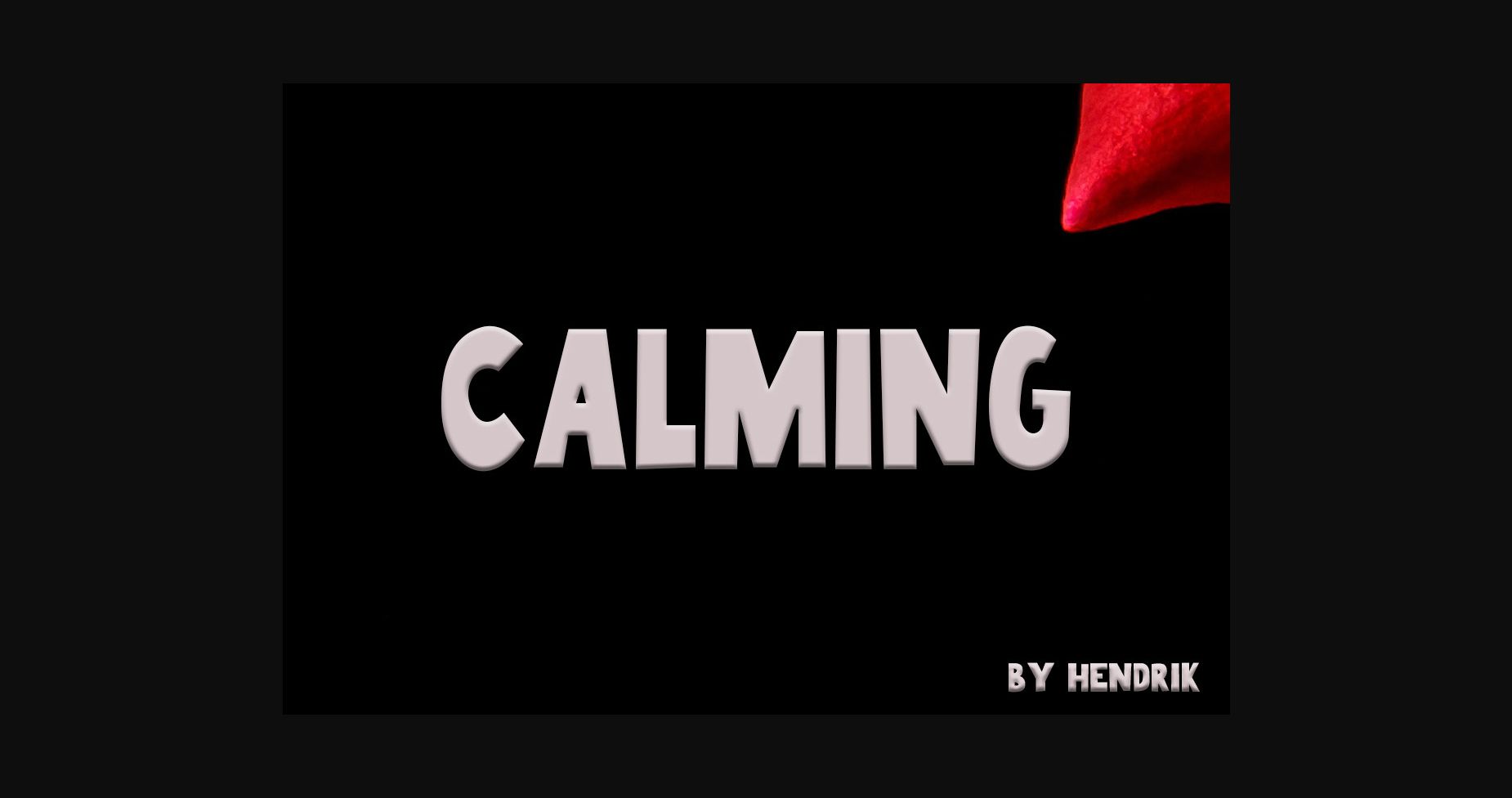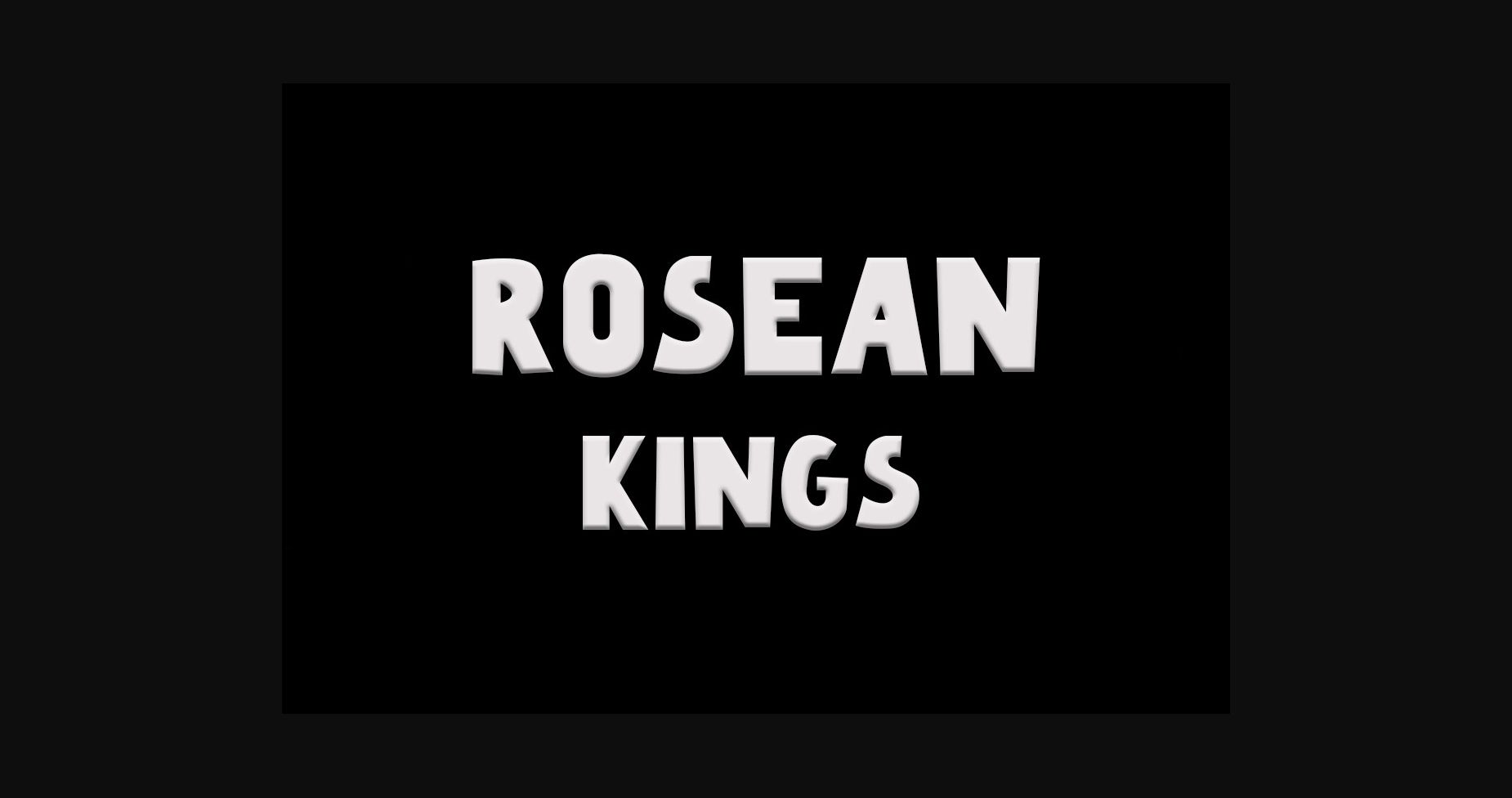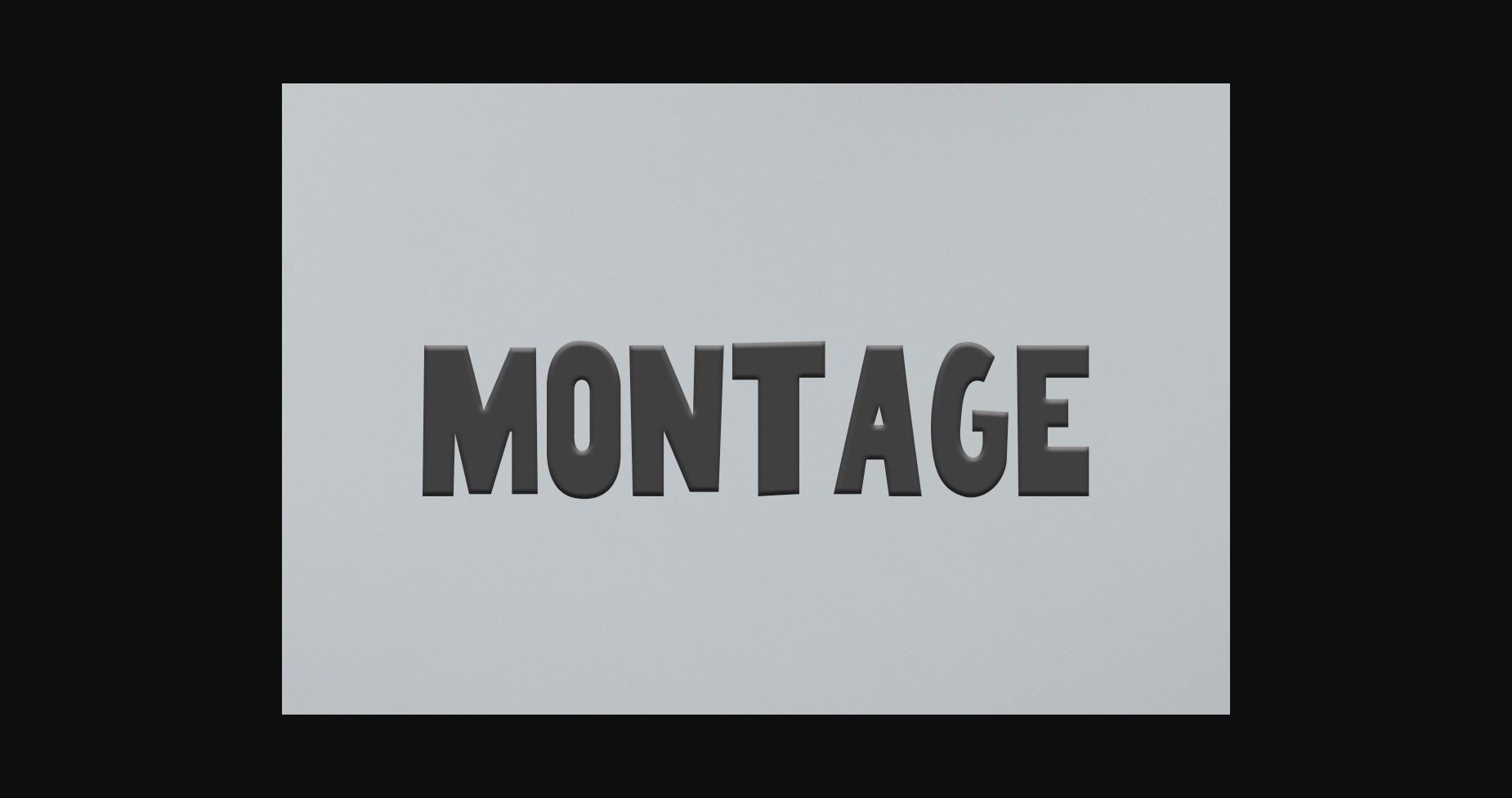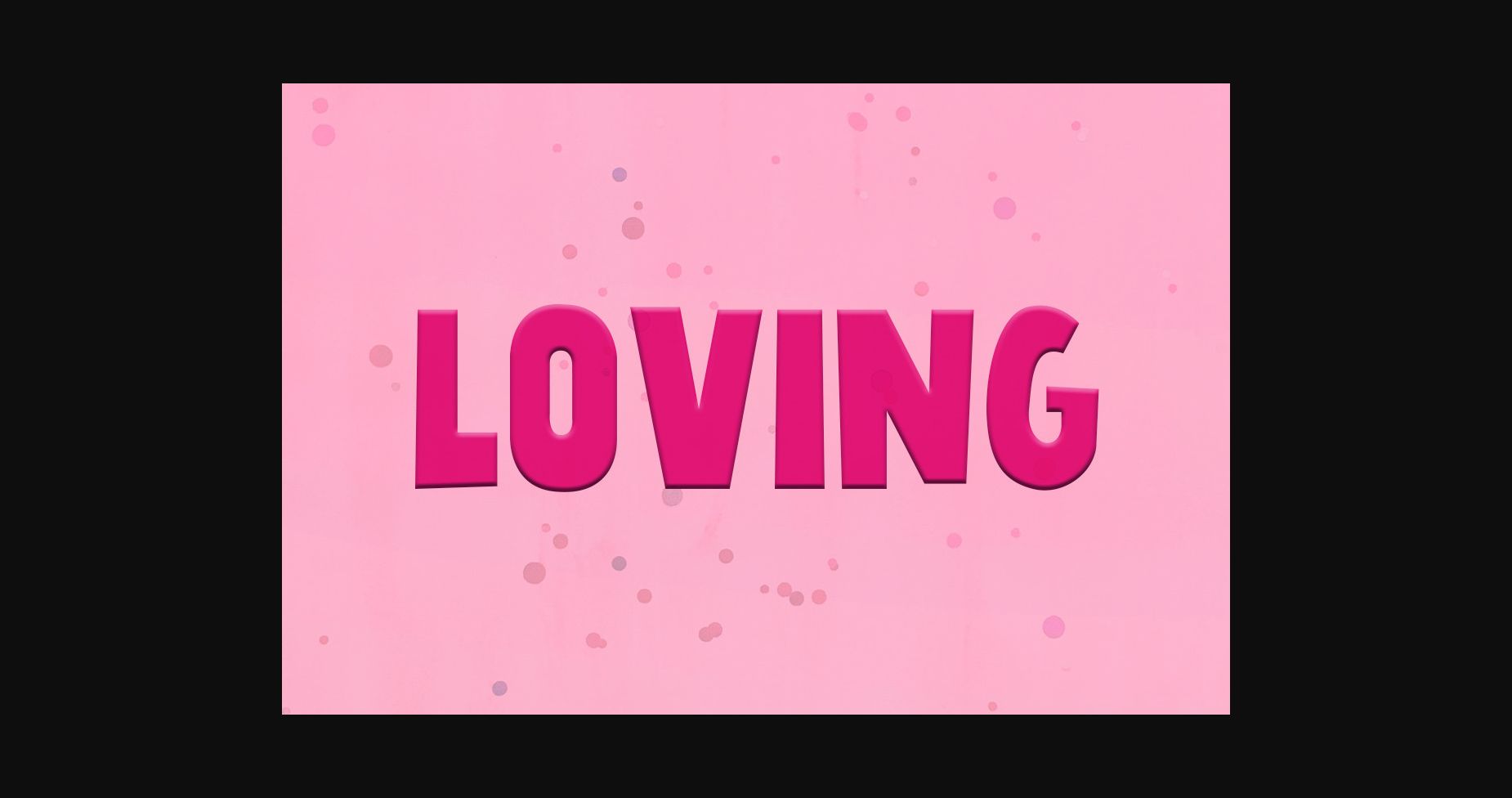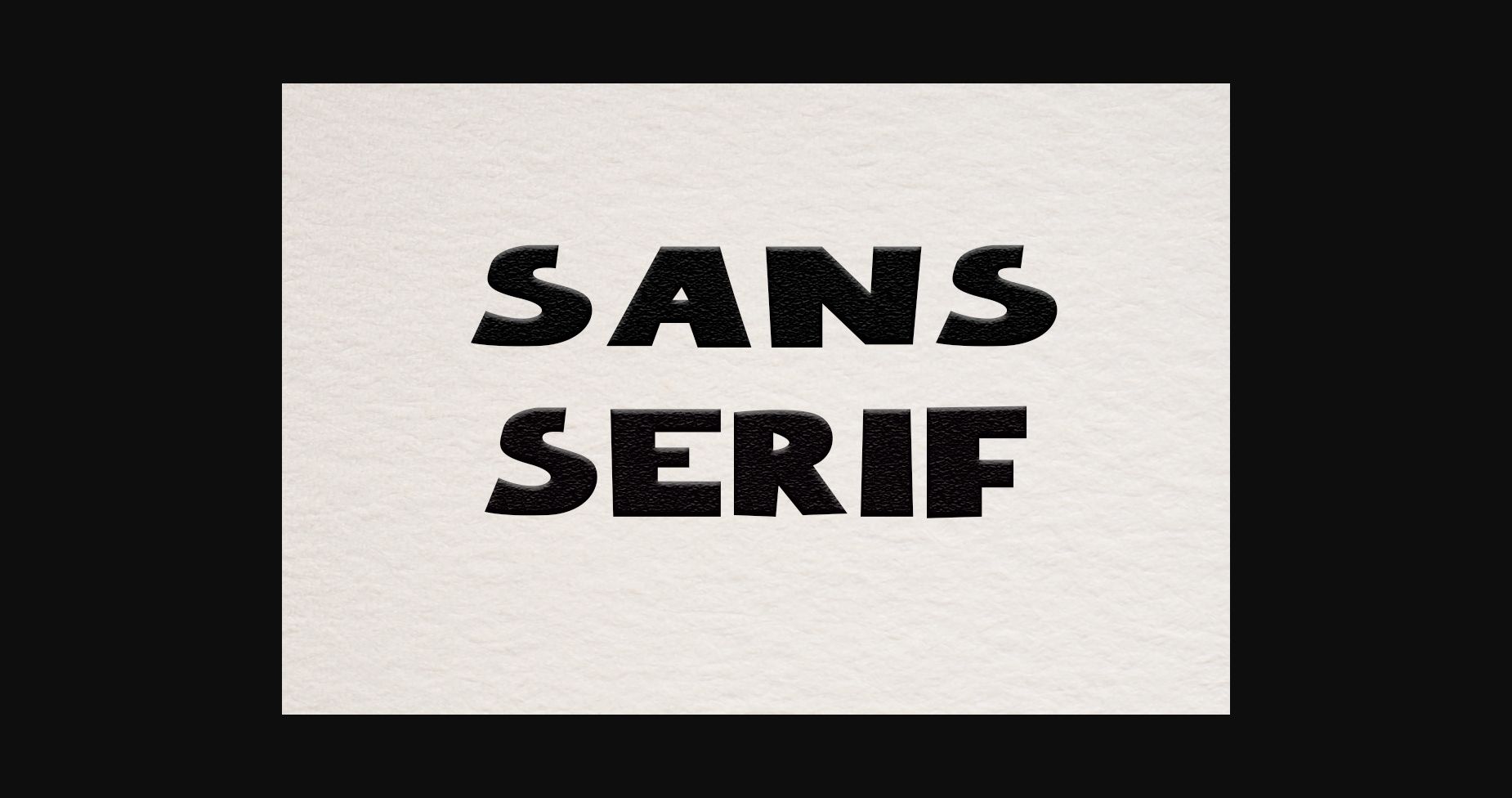
Calming Font
About Calming Font
Calming is a sans serif font sure to turn heads and leave a lasting impression. Perfect for headlines, logos, and any design that demands attention. This font is both functional and stylish, making it a versatile choice for a wide range of design projects.